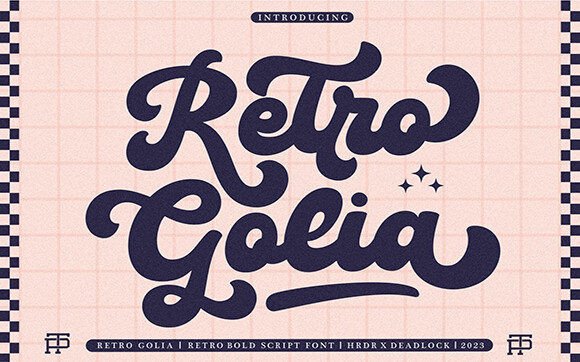
Introducing Retro Golia Font, the perfect choice for those seeking the best font for writing quotes! Crafted with love by HRDR, this enchanting handwritten font will captivate your audience and add a touch of romance to any project.
With its versatile nature, Retro Golia Font is not limited to a single purpose. Its script style lends itself beautifully to a wide range of applications, making it ideal for greeting cards, headlines, social media graphics, and more. Let your creativity flow as you explore the endless possibilities this font offers.
Immerse yourself in the world of Retro Golia Font and discover the power of its handcrafted charm. Every stroke and curve of this font has been meticulously designed to evoke emotions and create a lasting impact. Your words will effortlessly come to life, leaving a lasting impression on your readers.
Indulge in the nostalgia and warmth that Retro Golia Font brings to your designs. Whether you're working on a vintage-themed project, a love letter, or an inspirational quote, this font will transport your audience back in time. It's like stepping into a classic movie scene, where every word is carefully chosen to stir the soul.
Unlock your creativity and let Retro Golia Font be your muse. Its elegant and graceful appearance will inspire you to create masterpieces that stand out from the crowd. Express yourself with words that flow seamlessly, conveying your thoughts and emotions with unmatched beauty.